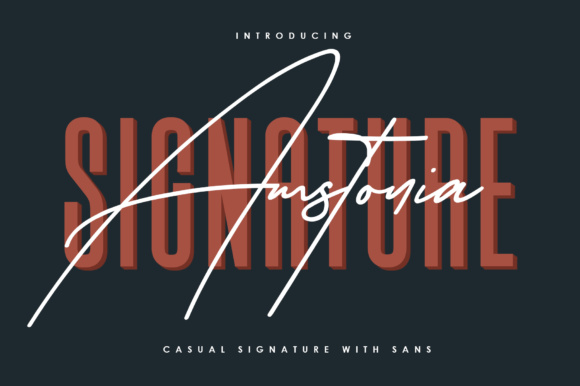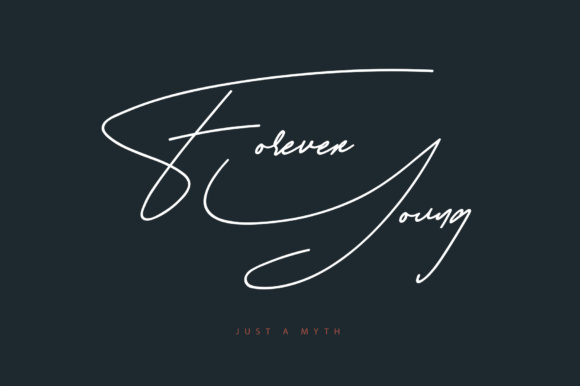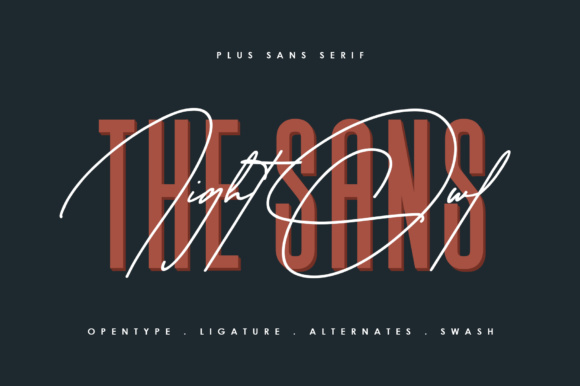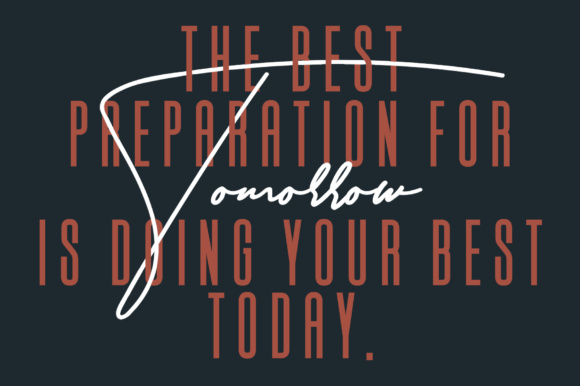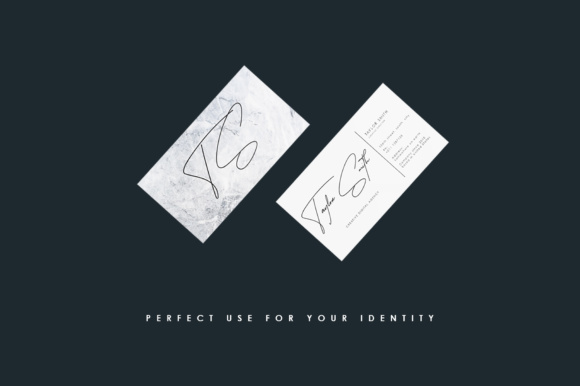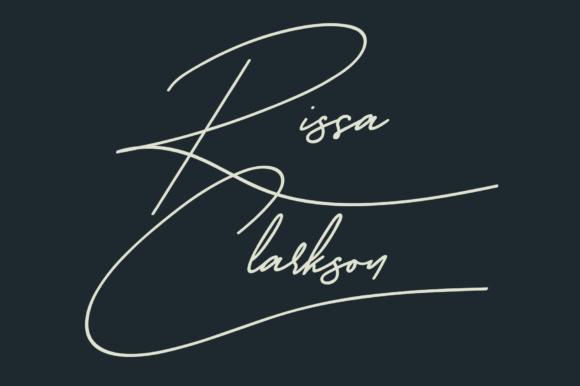
Amstonia Font
About Amstonia Font
Give your designs an authentic handcrafted feel with “Amstonia”. It comes in a sans and signature version which both are perfectly suited for signatures, stationery, logos, typography quotes, magazine or book covers, and more!